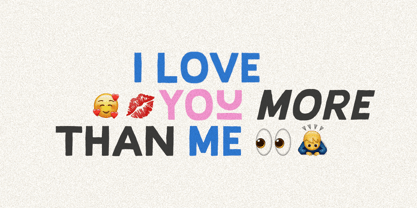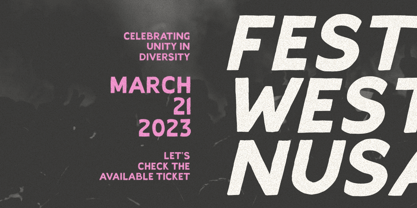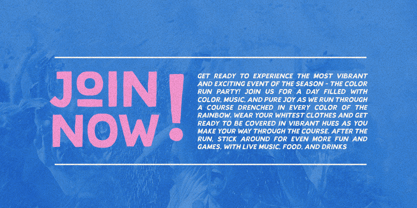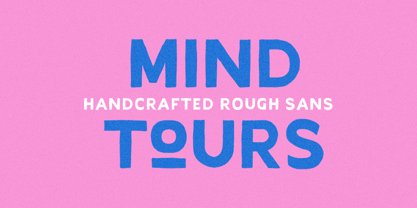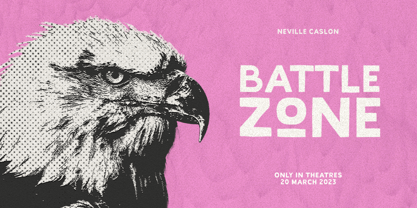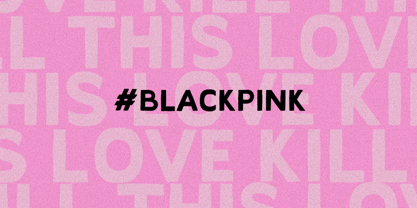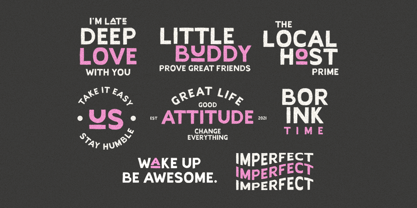
Mind Tours
La familia tipográfica Mind Tours fue diseñada por Dzikrul Aulia y publicada por Bale Type. Mind Tours contiene 2 estilos.
Mind Tours is a handcrafted sans with organic, rough, and personal touch. You can use this fonts for many purposes such as logotype, quotes or any projects that require handmade looks. With different uppercase and lowercase, you can choose what you want or combine them in a word. This fonts also support multi language!